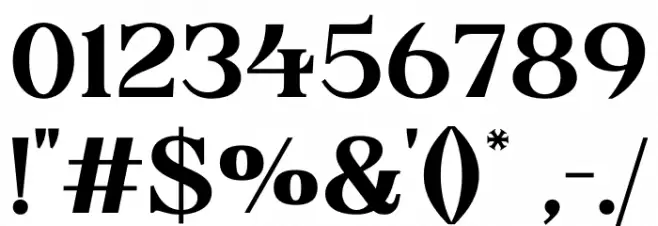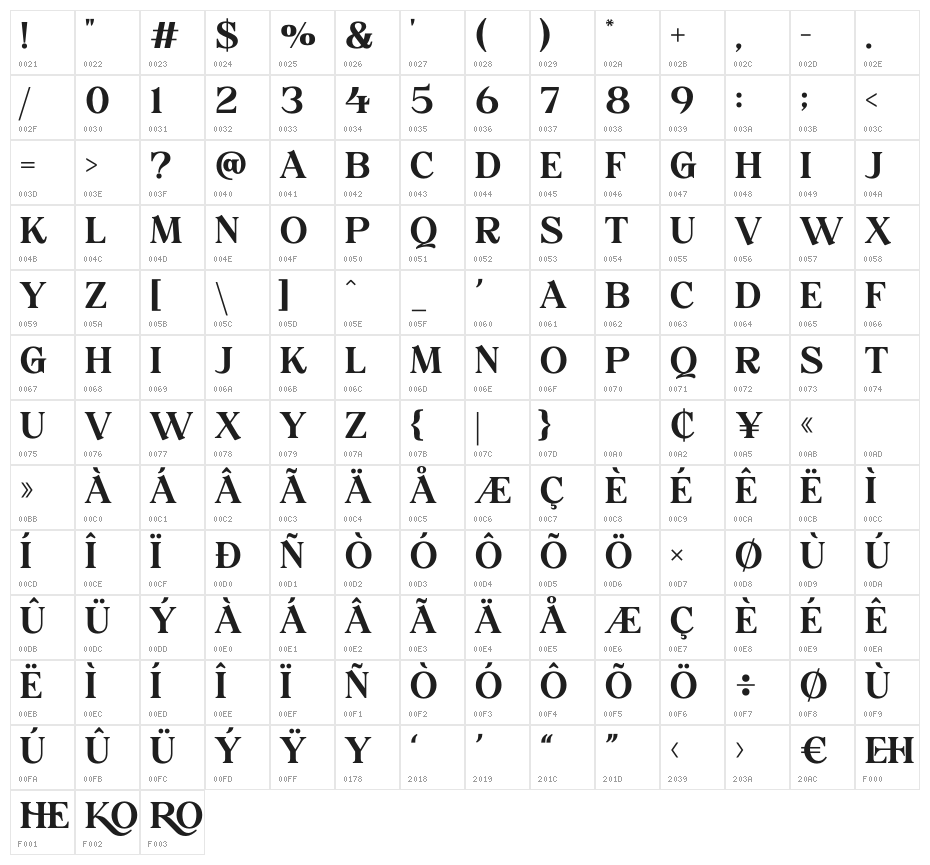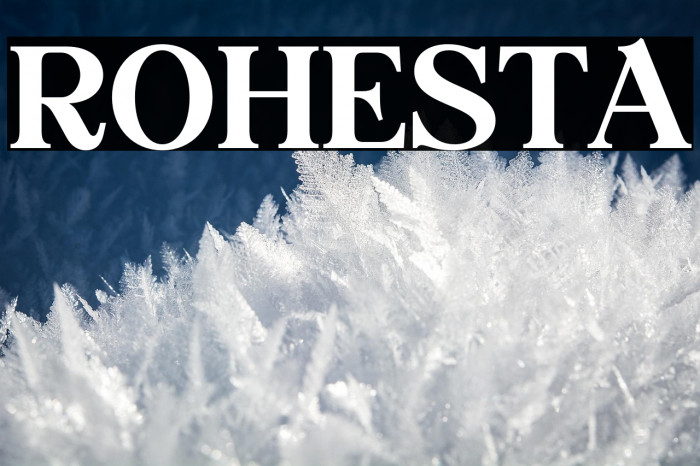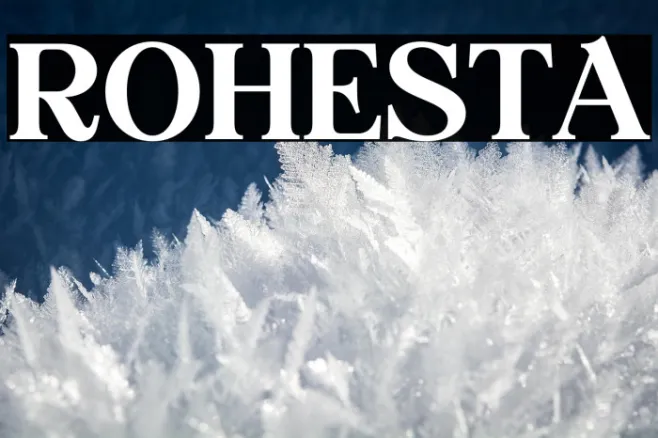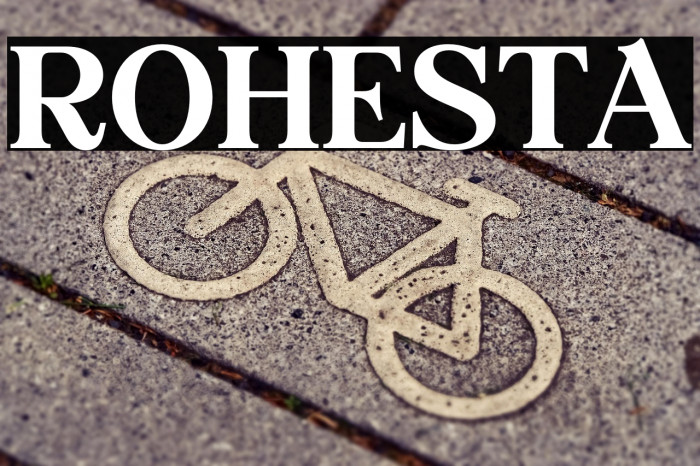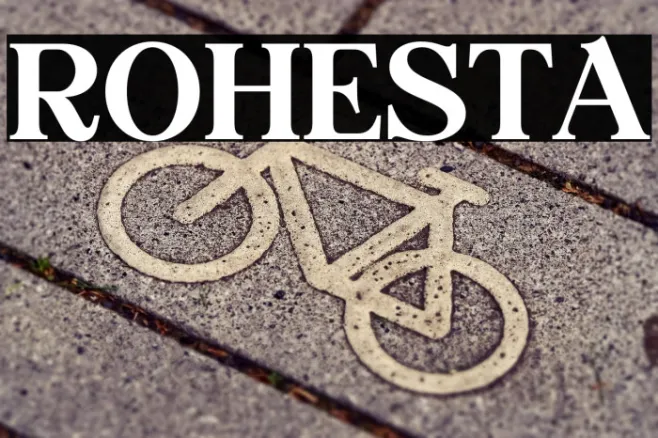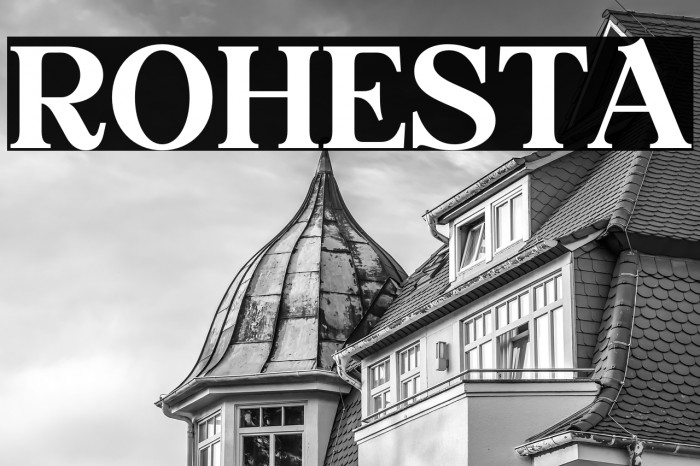
ROHESTA Font
ROHESTA Description
This font exhibits a classic serif style with strong, bold strokes and distinct serifs that give it a traditional and authoritative appearance. The uppercase letters are well-proportioned, with a slight flair on the serifs that adds a touch of elegance. The numerals are clear and robust, maintaining the same boldness as the letters. Special characters are designed to complement the overall style, ensuring consistency across all glyphs. This font is suitable for projects that require a formal and impactful typeface.